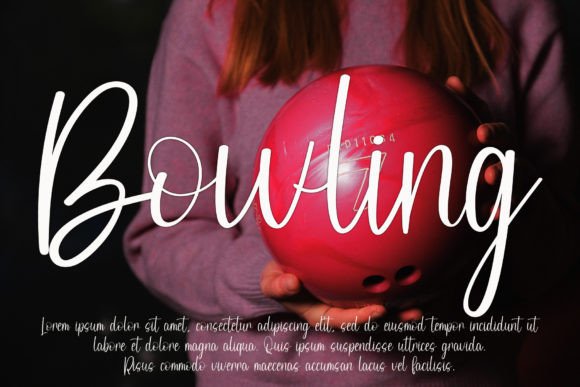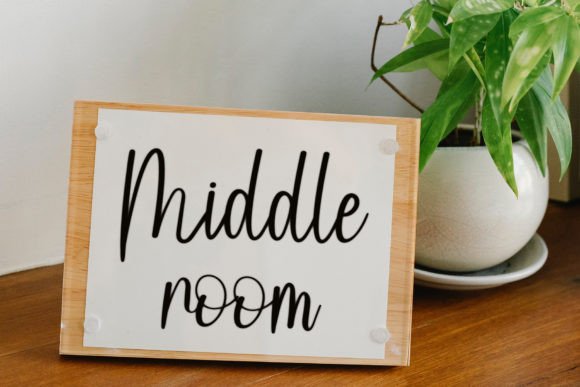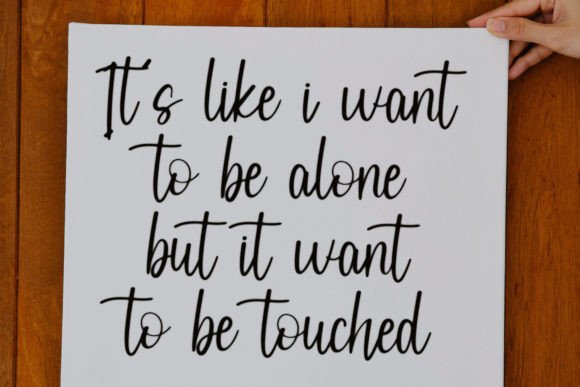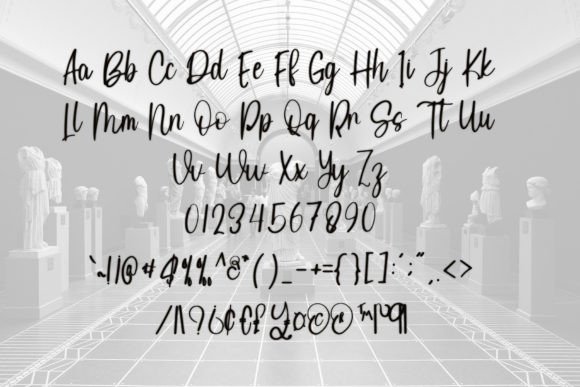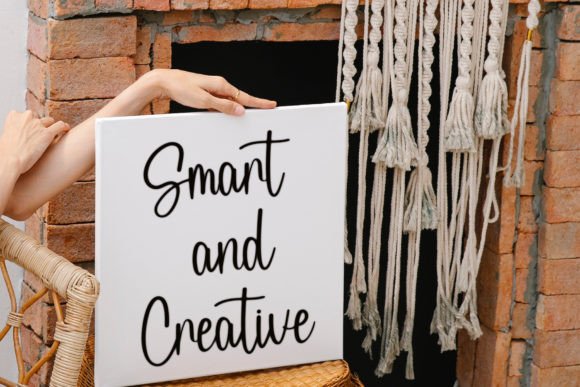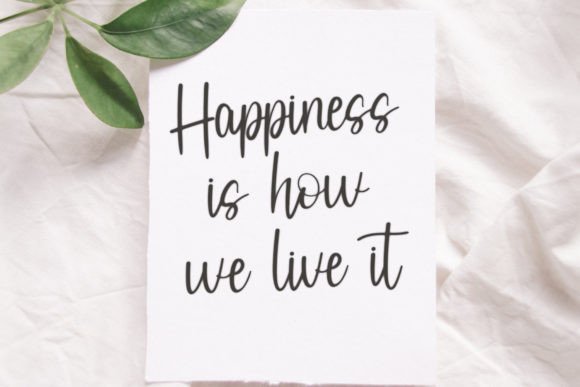
Happy Saturday Font: Elevate Your Designs with Elegance
Are you on the hunt for a font that adds a touch of sophistication and charm to your projects? Look no further than the Happy Saturday Font, a stunning handwritten font that is sure to capture your heart. With its elegant and distinct style, this font is perfect for designers, crafters, and anyone looking to create spectacular designs.
The Beauty of Happy Saturday Font
Happy Saturday Font is a neat and beautiful handwritten font that boasts an elegant touch, making it ideal for a wide range of projects. Whether you’re working on a logo, branding materials, social media graphics, or even a website, this font is sure to impress. Its incredibly distinct and timeless style sets it apart from other fonts, making it a valuable addition to your design arsenal.
What Makes Happy Saturday Font Stand Out
- Elegant Touch: Happy Saturday Font features a refined and sophisticated style that adds a touch of elegance to any design.
- Handwritten Charm: The font’s handwritten nature gives it a personal and unique feel, making it perfect for projects that require a human touch.
- Distinct Style: The font’s distinct style sets it apart from other fonts, making it easy to recognize and remember.
- Timeless Appeal: Happy Saturday Font has a timeless quality that ensures it will remain relevant and stylish for years to come.
Happy Saturday Font is a versatile font that is perfect for a wide range of design projects. Whether you’re a professional designer or a crafter, this font is sure to inspire your creativity. Use it to create:
- Logos and Branding Materials: Add a touch of elegance to your logo and branding materials with Happy Saturday Font.
- Social Media Graphics: Create stunning social media graphics that stand out from the crowd with this beautiful font.
- Websites and Blogs: Use Happy Saturday Font to add a touch of sophistication to your website or blog.
- Crafting Projects: Add a personal touch to your crafting projects, such as handmade cards, invitations, and scrapbooking pages.
Tips for Using Happy Saturday Font
To get the most out of Happy Saturday Font, here are a few tips to keep in mind:
- Use it Sparingly: While Happy Saturday Font is beautiful, it’s best to use it sparingly to avoid overwhelming your design.
- Pair it with Other Fonts: Experiment with pairing Happy Saturday Font with other fonts to create a unique and interesting look.
- Adjust the Size: Adjust the size of the font to create visual interest and add emphasis to certain elements of your design.
In conclusion, Happy Saturday Font is a beautiful and elegant handwritten font that is perfect for designers, crafters, and anyone looking to create spectacular designs. With its distinct and timeless style, this font is sure to elevate your designs and add a touch of sophistication. So why wait? Fall in love with Happy Saturday Font and start creating stunning designs today!